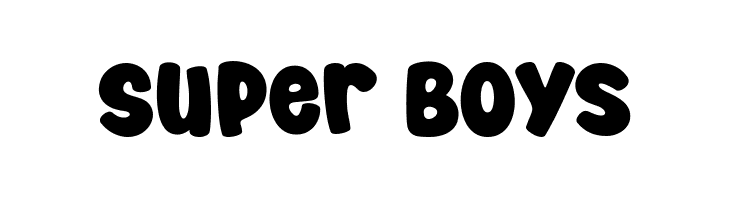
A bold, rounded font with a playful and modern aesthetic.
A bold, handwritten script font with a lively and dynamic style.
A playful, whimsical font blending script and sans-serif styles.
A bold, graffiti-inspired font with a dripping paint effect.
A modern, elegant script font with a flowing, handwritten style.
A bold, angular font with a rugged, distressed texture.
A bold, vintage-inspired font with thick strokes and a modern touch.
A playful, bold, and rounded handwritten font.
A bold, punk-inspired font with jagged, dynamic characters.
A bold, italic font with a modern, sporty design.
A bold, geometric font with a modern, tech-inspired aesthetic.
A flowing, cursive script font with elegant, sweeping strokes.
A playful, casual handwritten font with an informal, organic style.
A playful, thin, handwritten font with a casual and friendly style.
A bold, playful handwritten font with rounded, expressive strokes.
A bold, high-contrast serif font with expanded characters and a modern, elegant style.
A bold, high-contrast serif font with elegant and dramatic features.
A lively, cursive font with interconnected letters and moderate stroke thickness.
A playful, whimsical font with flowing cursive lowercase and tall, narrow uppercase letters.
A bold, decorative font with intricate, ornamental details.
A bold, angular font with a geometric and modern design.
A cursive, handwritten font with elegant loops and swashes.
A bold, playful handwritten font with rounded, dynamic strokes.
A dynamic and elegant script font with fluid, connected letterforms.
A bold, modern font with clean, geometric lines and slightly rounded characters.
A bold, distressed font with a vintage stamp effect.
A bold, playful font with thick, rounded strokes and whimsical curves.
A playful, casual handwritten font with smooth, flowing lines.
A modern, narrow font with consistent stroke width and a sleek, elegant design.
A playful, hand-drawn style font with rounded, flowing letterforms.